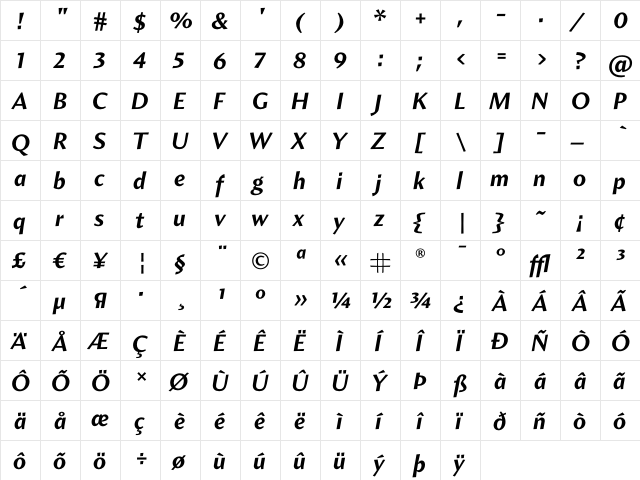
Amira Bold Italic
| Foundry | The Font Bureau, Inc, |
Design Context for Amira Typeface
Amira offers clean, dependable letterforms without strong stylistic allegiance, making it a practical choice for designers who need flexibility. The slanted form adds forward momentum and visual energy. The heavy weight commands attention and anchors typographic hierarchies.
Pro Tip: Use Amira for emphasis, pull quotes, and subheadings where its slanted energy can add rhythm to the layout.